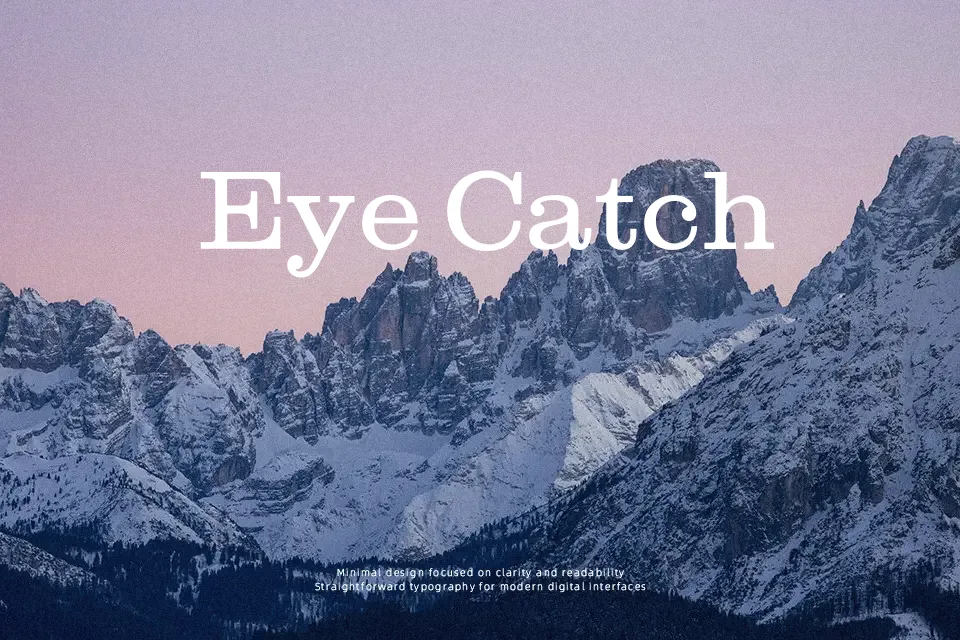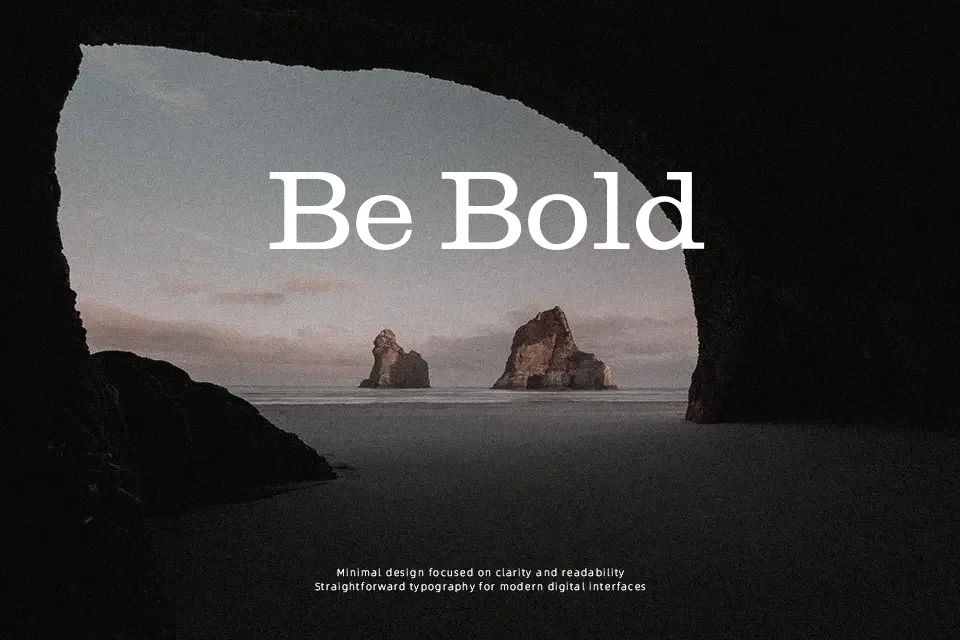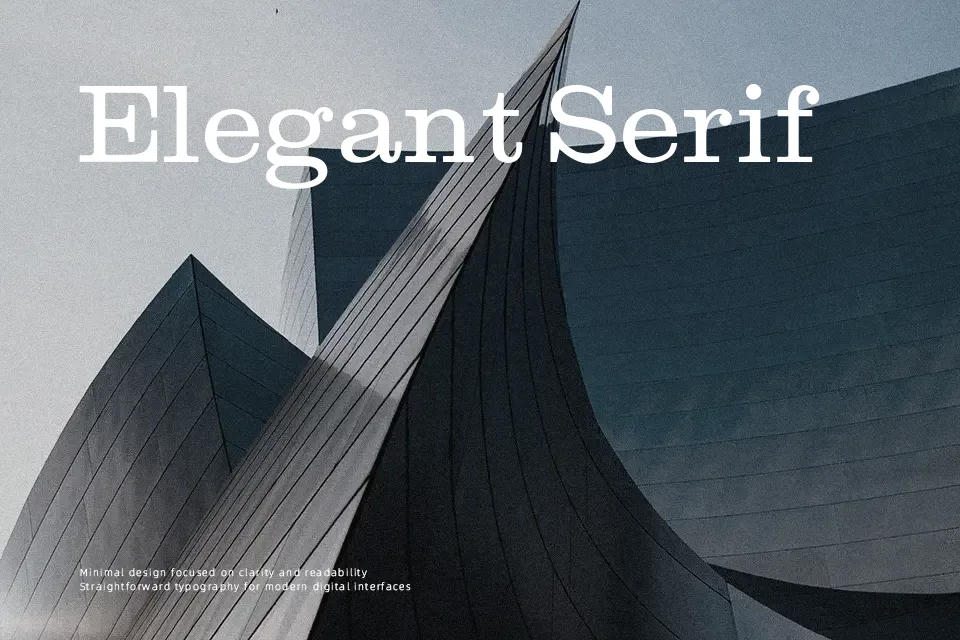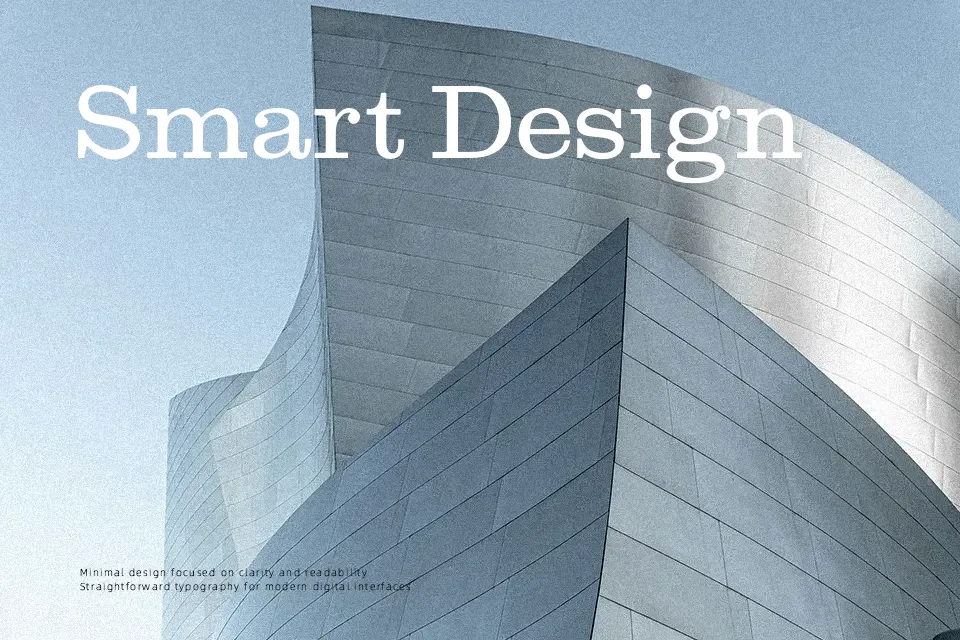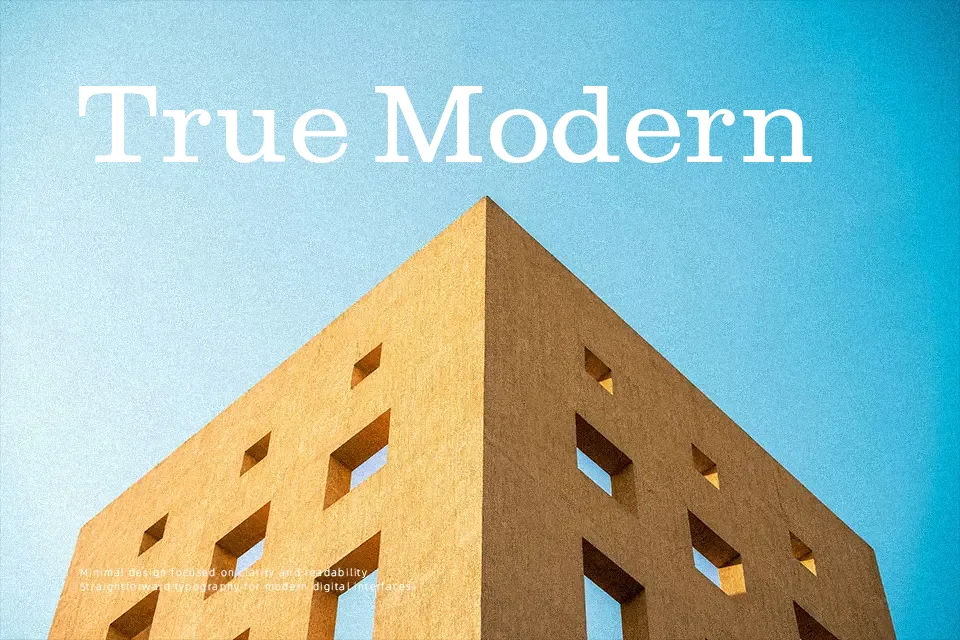
Craw Clarendon Font
If you are looking for an authoritative typographic voice, Craw Clarendon Font commands immediate attention. Created by Freeman Craw in 1955 for the American Type Founders, this typeface is a bold, modern interpretation of the traditional Clarendon style. It features thick, block-like slab serifs, remarkably sturdy stems, and a medium contrast that gives it an incredibly solid, undeniable weight.
Because of its heavy and confident structure, it performs flawlessly in large-scale applications like bold editorial headlines, vintage-inspired advertising, and strong corporate logo design. However, its prominent serifs and significant bulk make it entirely unsuitable for reading long paragraphs on mobile screens, where the heavy forms will quickly crowd the interface and fatigue the reader’s eyes. It serves as an excellent, historically grounded Clarendon alternative font for those needing extra typographic power.
– bold editorial headlines
– authoritative corporate logos
– vintage-inspired advertising
– prominent signage
– lengthy mobile articles
– compact UI text
– lightweight, delicate branding
Perfect for advertising, branding, and editorial, with a bold and display style.